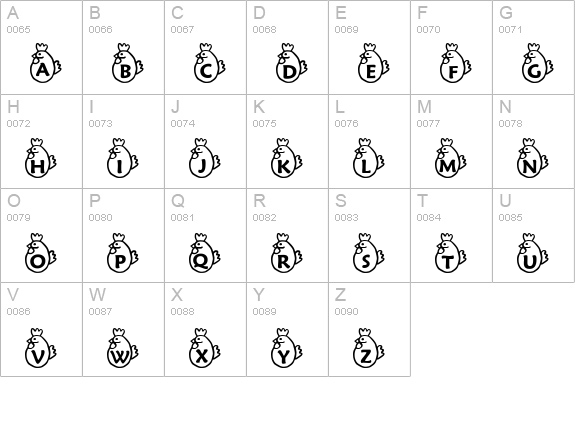
Introducing RMChicky, a delightful and playful font that is sure to add a touch of whimsy to any creative project. With its charming curves and unique letterforms, this font is perfect for adding a fun and lighthearted feel to invitations, greeting cards, posters, and more. RMChicky is not only visually pleasing, but it also offers a high level of versatility. Whether you're designing a children's book cover or creating a logo for a quirky brand, this font will effortlessly capture attention and bring a smile to anyone's face. What makes RMChicky even more appealing is the fact that it is available for free download at FontsMarket.com. Yes, you read that right - you can get your hands on this delightful font without spending a penny! FontsMarket.com is a trusted source for a wide range of fonts, and they proudly offer RMChicky as a freely available option for designers, hobbyists, and anyone looking to add a touch of charm to their projects. So go ahead and unleash your creativity with RMChicky. Let your imagination run wild as you explore the endless possibilities this font has to offer. Whether you're creating eye-catching headlines, playful typography, or even crafting personalized cards, RMChicky will be your go-to font for adding that extra dash of personality. Remember, RMChicky is free to download at FontsMarket.com, so don't miss out on this fantastic opportunity to enhance your design work with a font that combines style, playfulness, and accessibility. Start creating today and let RMChicky bring your ideas to life in the most delightful way possible!